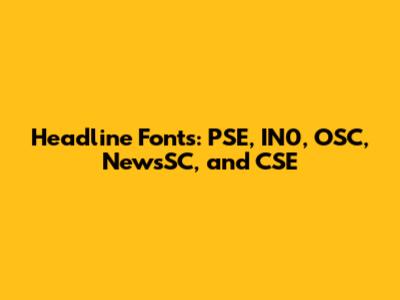
- Serif fonts: Fonts like Times New Roman, Georgia, or Merriweather are often used for their traditional and professional appearance. These fonts evoke a sense of reliability and are well-suited for conveying financial information.
- Sans-serif fonts: Fonts like Arial, Helvetica, or Roboto can also be used, especially for online publications. These fonts offer a clean and modern look, while still maintaining a sense of professionalism.
- Specific examples: Publications like The Wall Street Journal often use serif fonts for their headlines, while online financial news sources may opt for sans-serif fonts for better readability on screens.
- Bold sans-serif fonts: Fonts like Impact, Bebas Neue, or Montserrat are popular choices for news headlines. These fonts are highly visible and convey a sense of urgency and importance.
- Condensed fonts: Condensed fonts can be useful for fitting longer headlines into a limited space. Fonts like Oswald or Roboto Condensed can be effective in this regard.
- Specific examples: CNN often uses bold sans-serif fonts for its headlines, while The New York Times uses a more traditional serif font.
- Sans-serif fonts: Fonts like Open Sans, Lato, or Montserrat offer a clean and modern look that is suitable for a wide range of applications.
- Serif fonts: Fonts like Playfair Display or Libre Baskerville can add a touch of elegance and sophistication.
- Specific examples: Many corporate websites use clean sans-serif fonts for their headlines, while design-focused publications may opt for more creative typefaces.
- Bold sans-serif fonts: Fonts like Roboto, Open Sans, or Montserrat are versatile choices that work well for online news headlines.
- Slab serif fonts: Fonts like Roboto Slab or Arvo can add a touch of personality while maintaining readability.
- Specific examples: BBC News uses a clean sans-serif font for its headlines, while some tabloid newspapers use bolder and more attention-grabbing fonts.
- Serif fonts: Fonts like Garamond, Times New Roman, or Georgia convey a sense of tradition and authority.
- Sans-serif fonts: Fonts like Helvetica, Arial, or Roboto offer a clean and contemporary look.
- Specific examples: Many universities use traditional serif fonts for their official publications, while tech companies often prefer modern sans-serif fonts.
Choosing the right headline font is crucial for capturing attention and conveying the right message. Different publications and organizations often have specific font preferences to maintain a consistent brand identity and appeal to their target audience. In this article, we'll explore the headline fonts used by PSE (presumably a stock exchange or publication), IN0 (likely a news outlet), OSC (possibly another organization or publication), NewsSC (a news source), and CSE (again, likely an organization or publication). Understanding these font choices can provide valuable insights into effective typography for headlines.
Understanding the Importance of Headline Fonts
Headline fonts play a vital role in attracting readers and setting the tone of the content. A well-chosen font can immediately grab attention, convey professionalism, and establish a clear hierarchy of information. The font should be legible, visually appealing, and aligned with the overall brand image. When selecting a headline font, consider factors such as readability, contrast, and the target audience. For example, a financial publication might opt for a serious and authoritative font, while a lifestyle magazine may choose a more playful and contemporary typeface. The right font can make a significant difference in how the headline is perceived and whether readers are compelled to delve deeper into the article. A good headline font will make your content more appealing, readable, and professional. When a user visits your site, the first thing he looks at is the title, so you have to use the right font to get the user's attention.
The choice of headline font also impacts the overall visual hierarchy of a page. A larger, bolder font is typically used for the main headline, while smaller fonts are reserved for subheadings and body text. This creates a clear distinction between different levels of information and guides the reader's eye through the content. Consistency in font usage is essential for maintaining a professional and cohesive look. By adhering to a specific font palette, publications and organizations can reinforce their brand identity and create a recognizable visual style. Moreover, it is very important to know your target audience, what type of style they like, and what style they are most attracted to, so that the style of your title fits your target audience.
Furthermore, the technical aspects of font rendering should not be overlooked. Different fonts may display differently on various devices and browsers. It is important to choose fonts that are optimized for web use and ensure that they are properly rendered across all platforms. Consider using web-safe fonts or implementing font embedding techniques to guarantee consistent display. Additionally, pay attention to kerning and letter spacing to improve readability and visual appeal. A well-kerned headline will look more polished and professional. So you can get your user's attention with less effort. All the things that are said are very important to get attention and make the content more readable.
Investigating Headline Fonts Used by Different Entities
Now, let's delve into the specific headline fonts used by PSE, IN0, OSC, NewsSC, and CSE. Due to the lack of specific information about these entities, this analysis will be based on common practices and potential choices that align with their respective fields.
PSE (Hypothetical Stock Exchange or Publication)
If PSE represents a stock exchange or financial publication, it is likely to use fonts that convey authority, stability, and trustworthiness. Common choices might include: